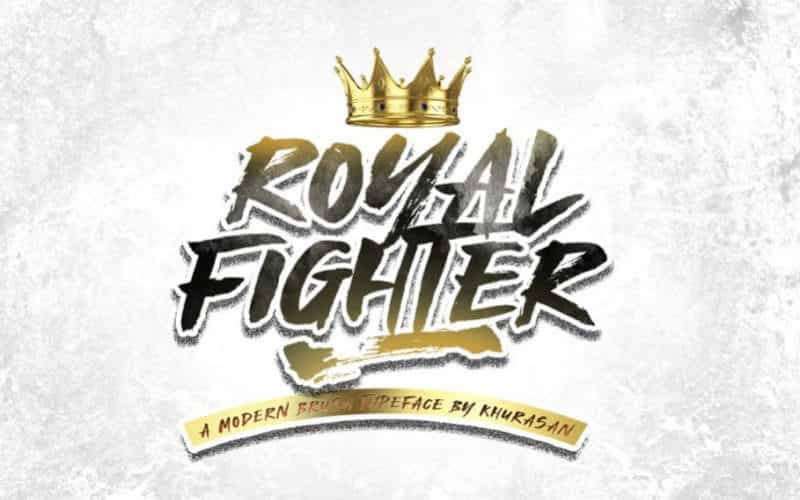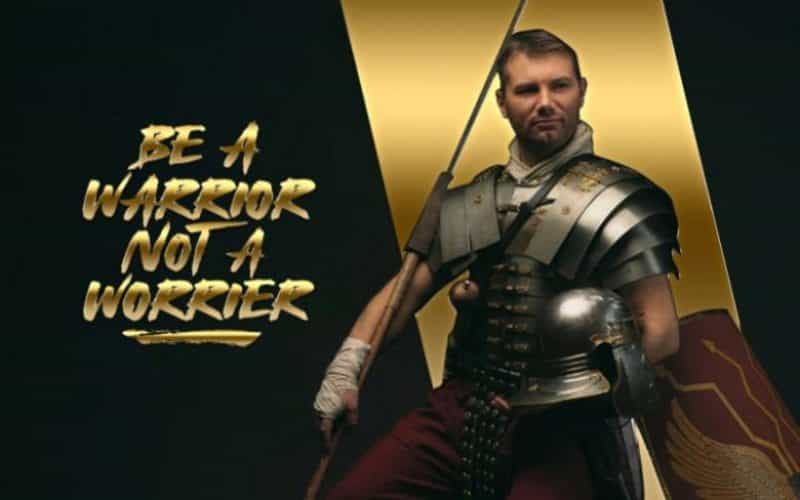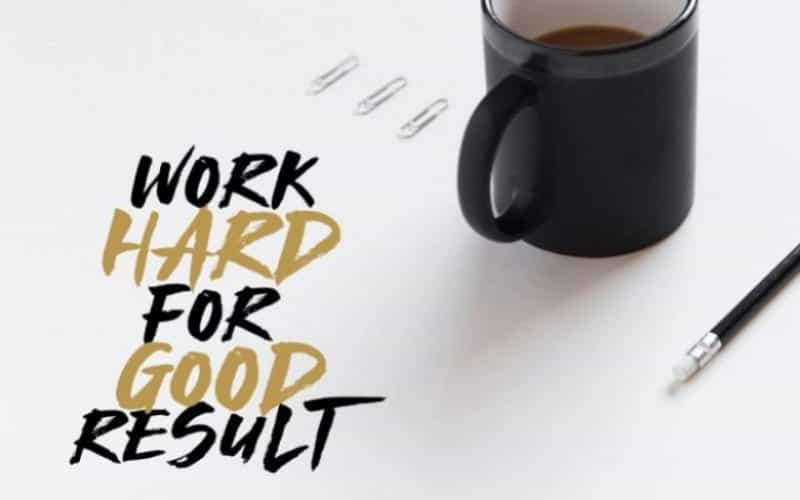
The Royal Fighter is a new type of handwritten font brush, has an elegant and retro taste for character design. With its vast features, Royal Fighter font comprises capital and lower case letters, multi-support language, currency symbols, figures, numbers, & symbols.